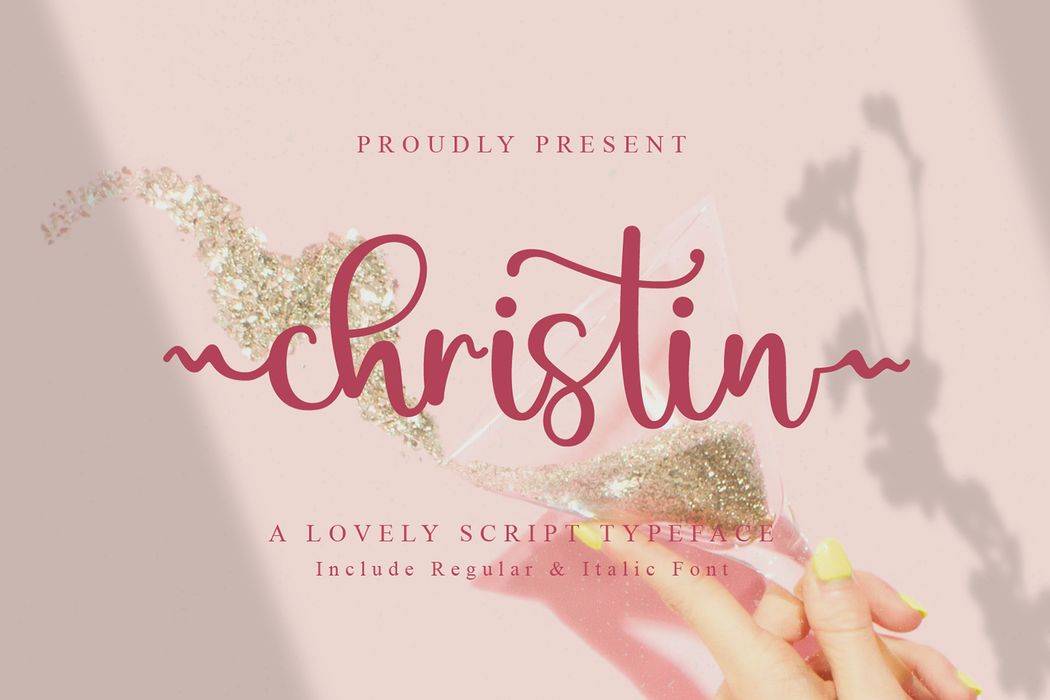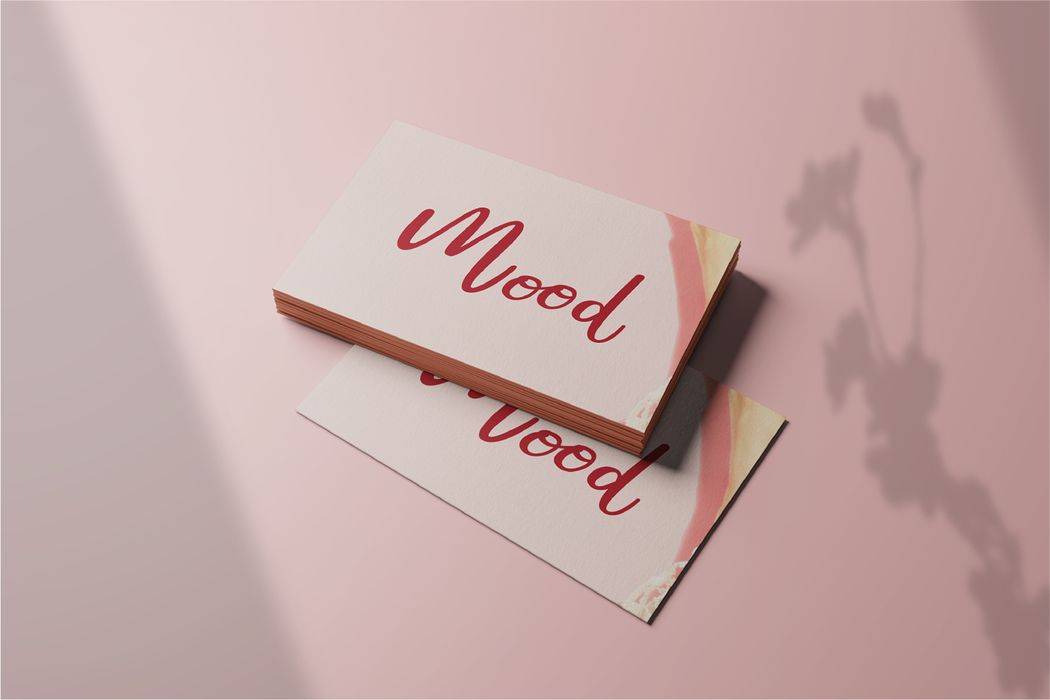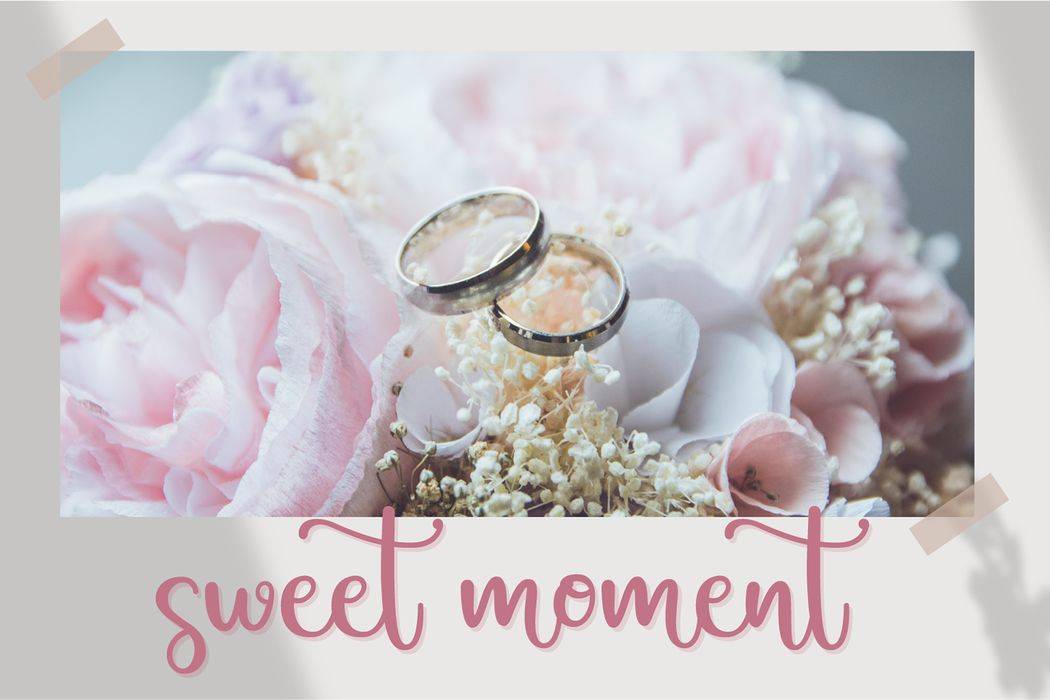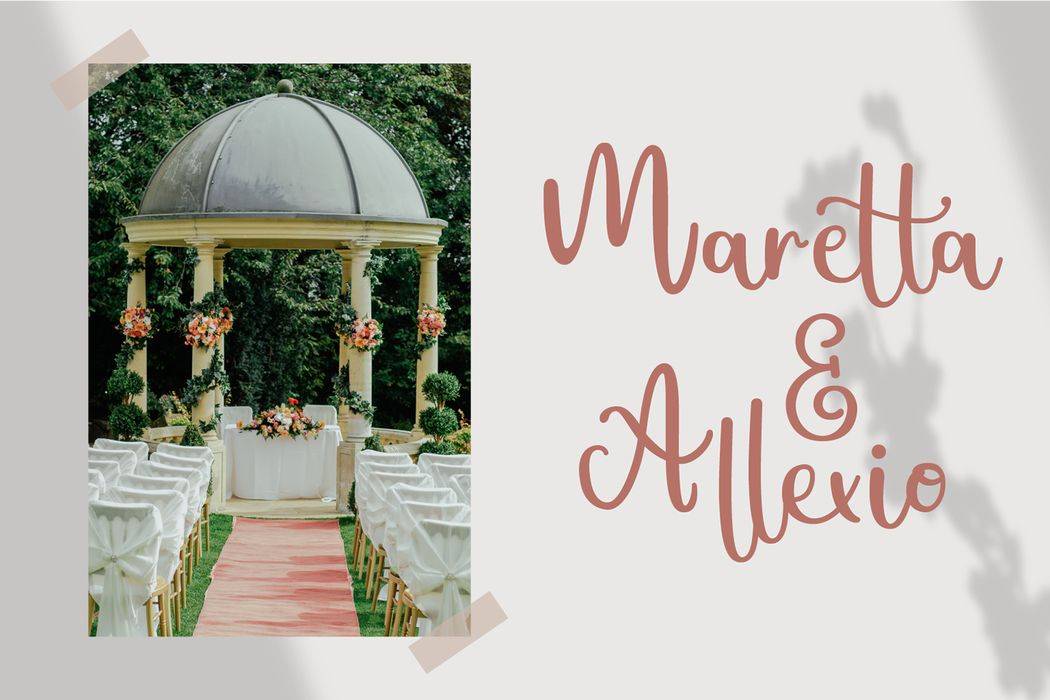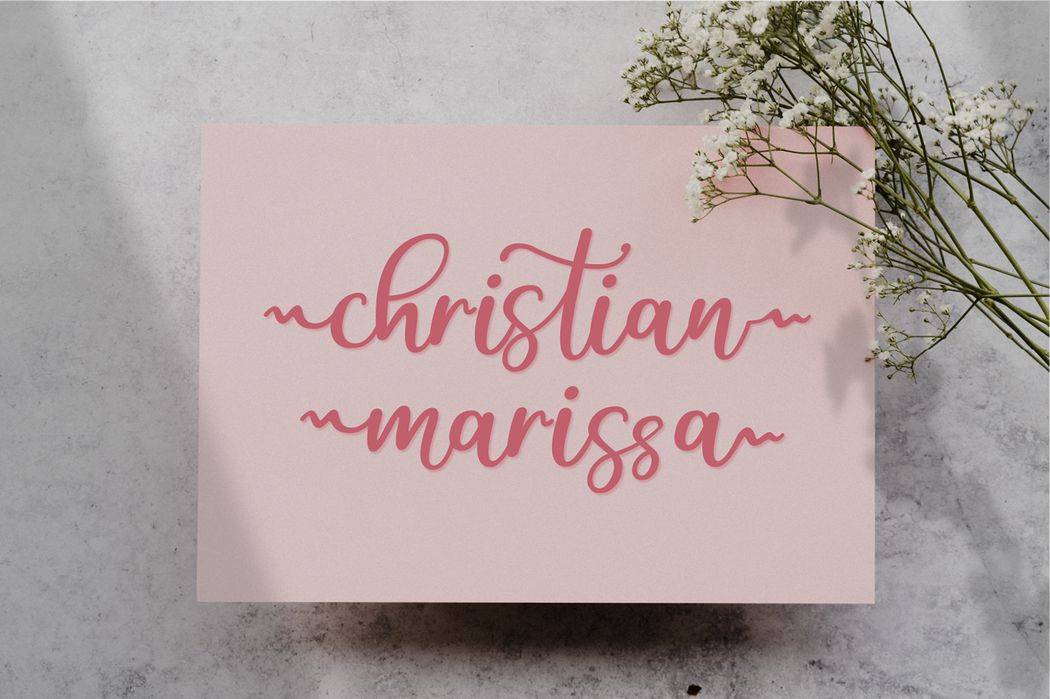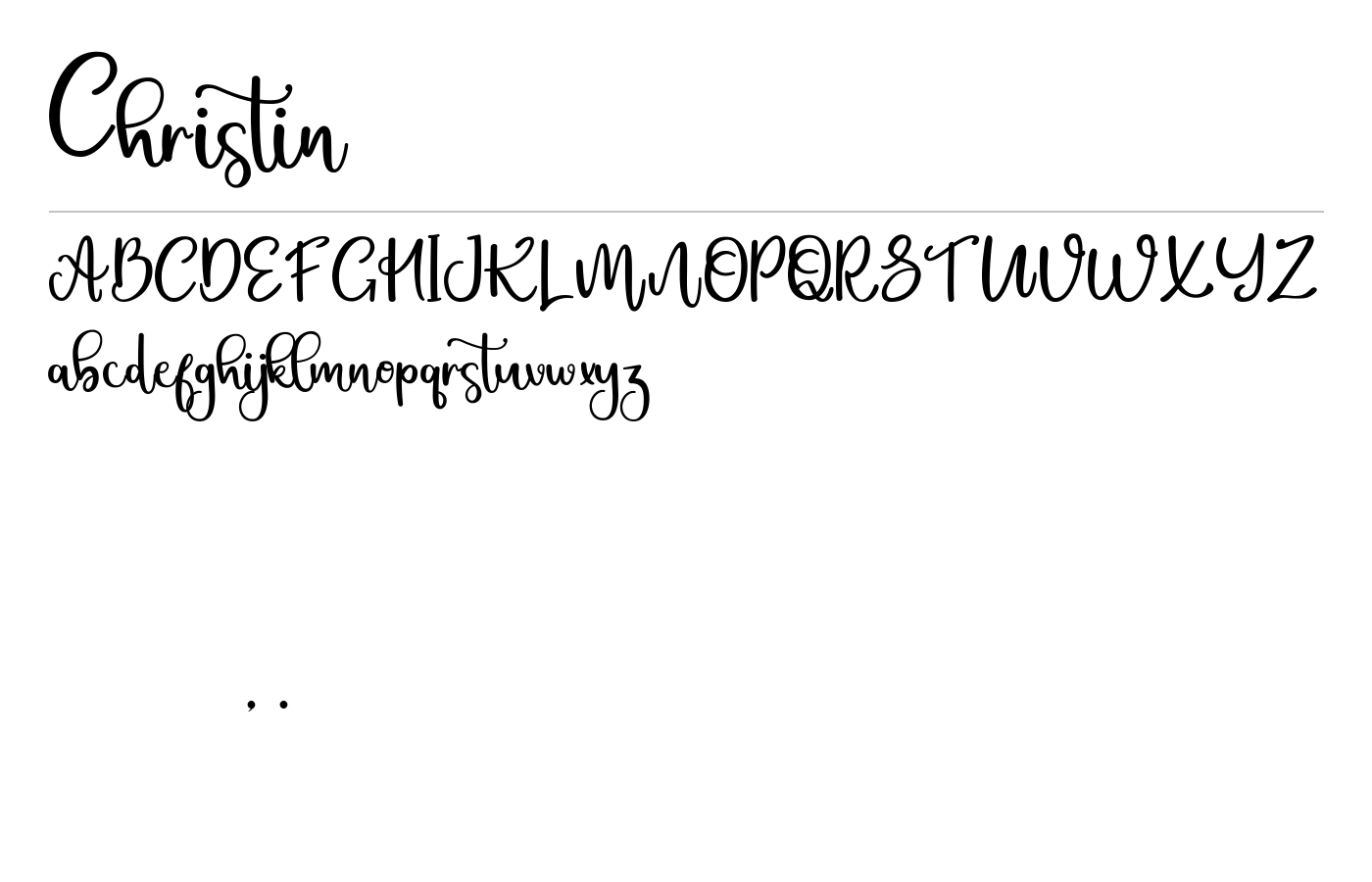
Christin is a playful and elegant handwritten script font with smooth, flowing strokes and a moderate contrast that gives it a personal and charming feel. Its mix of tall, slender letterforms with unique swashes and curls makes it perfect for creative branding, invitations, and stylish headlines where a friendly yet sophisticated touch is desired. This font works especially well for fashion, beauty, and lifestyle projects that want to convey warmth and individuality.
Christin Font
About Christin Font
| Font family | Christin Font |
| Designer | Suntype |